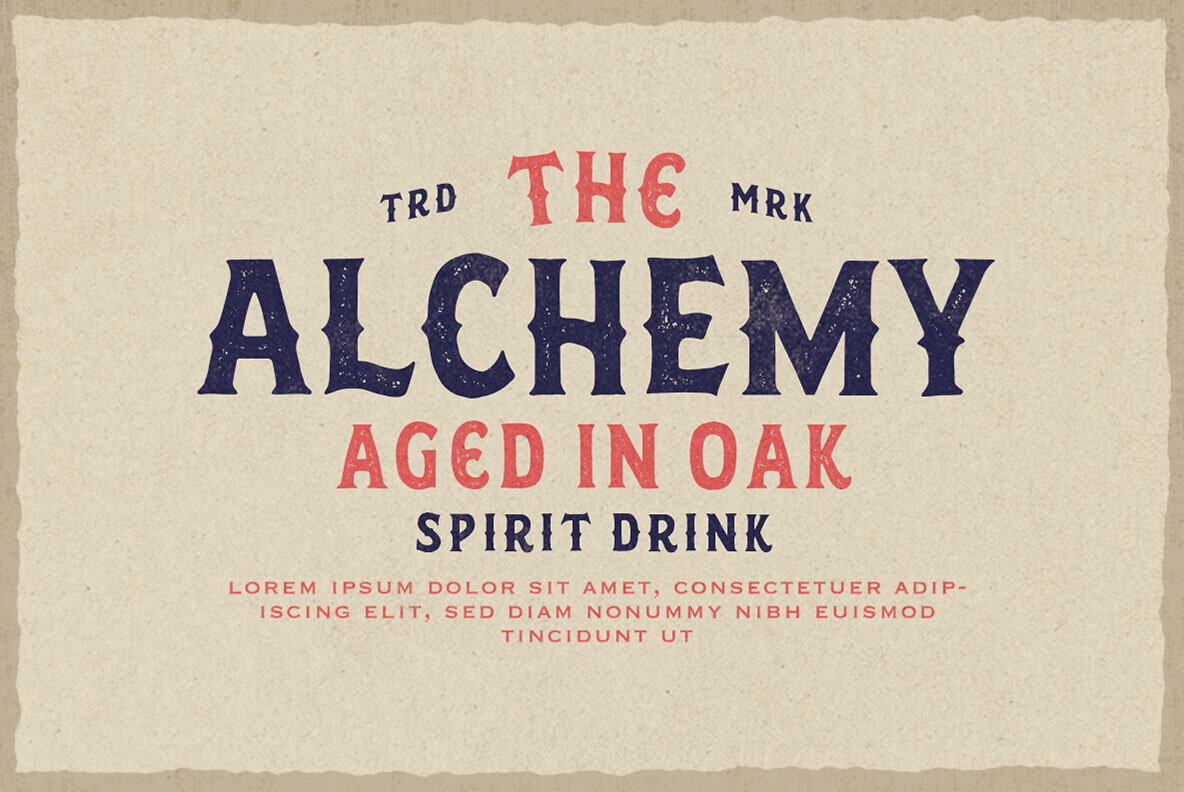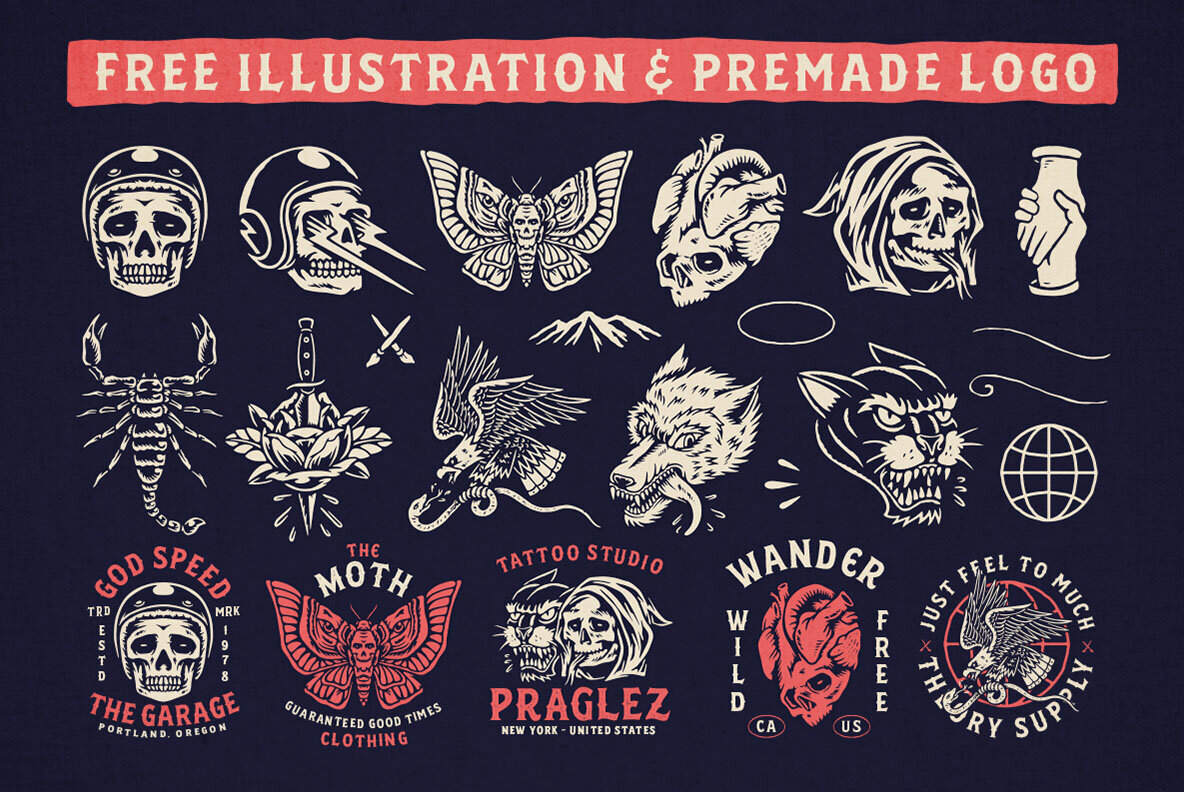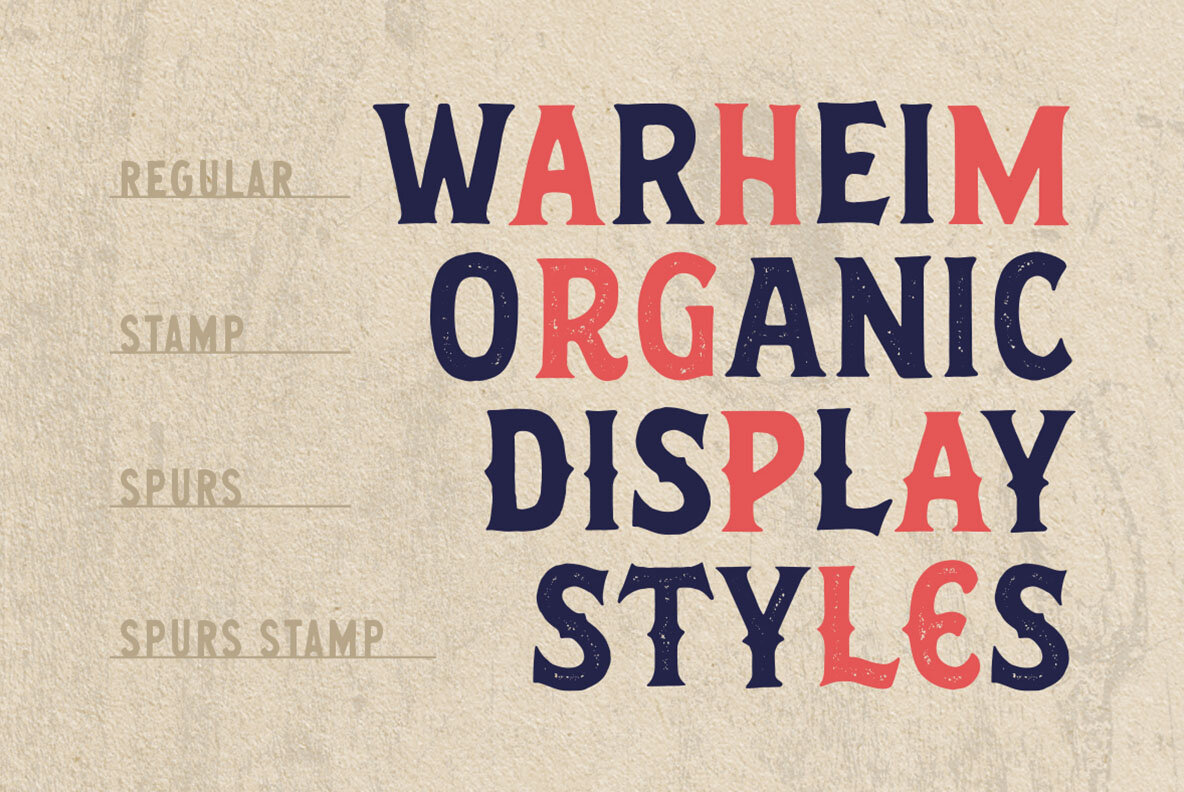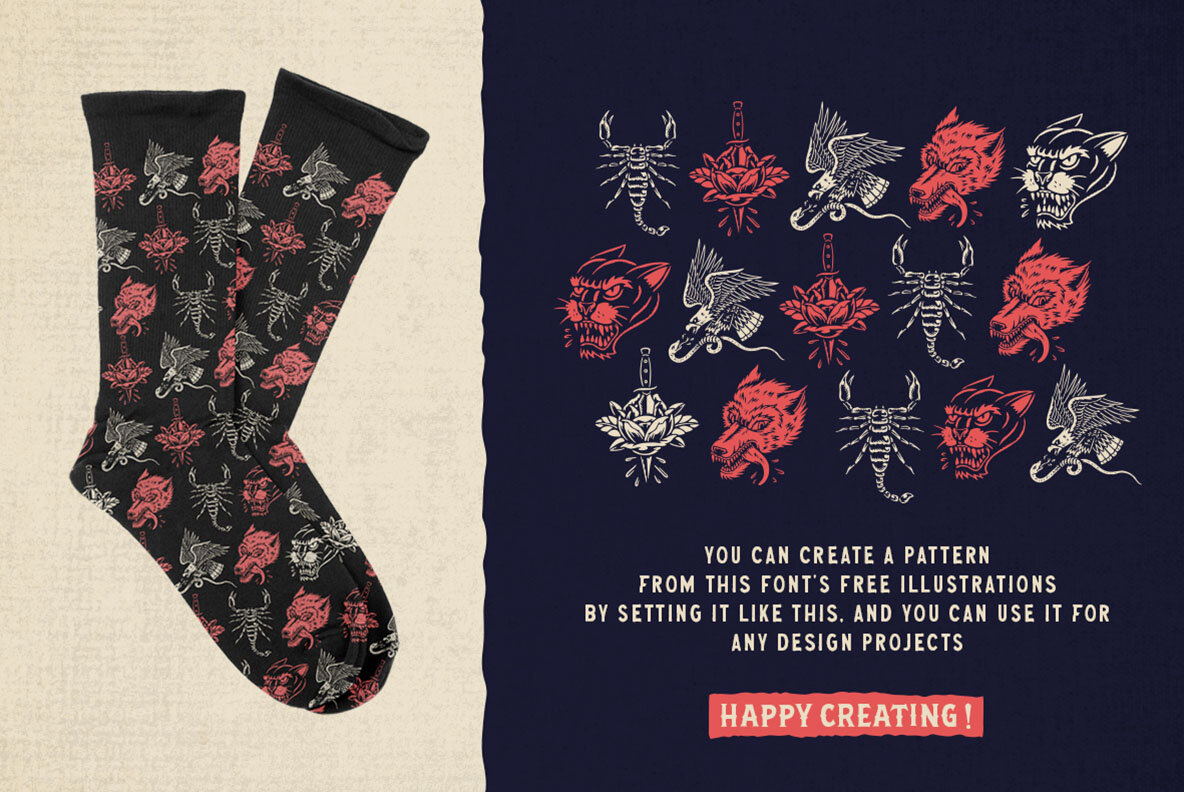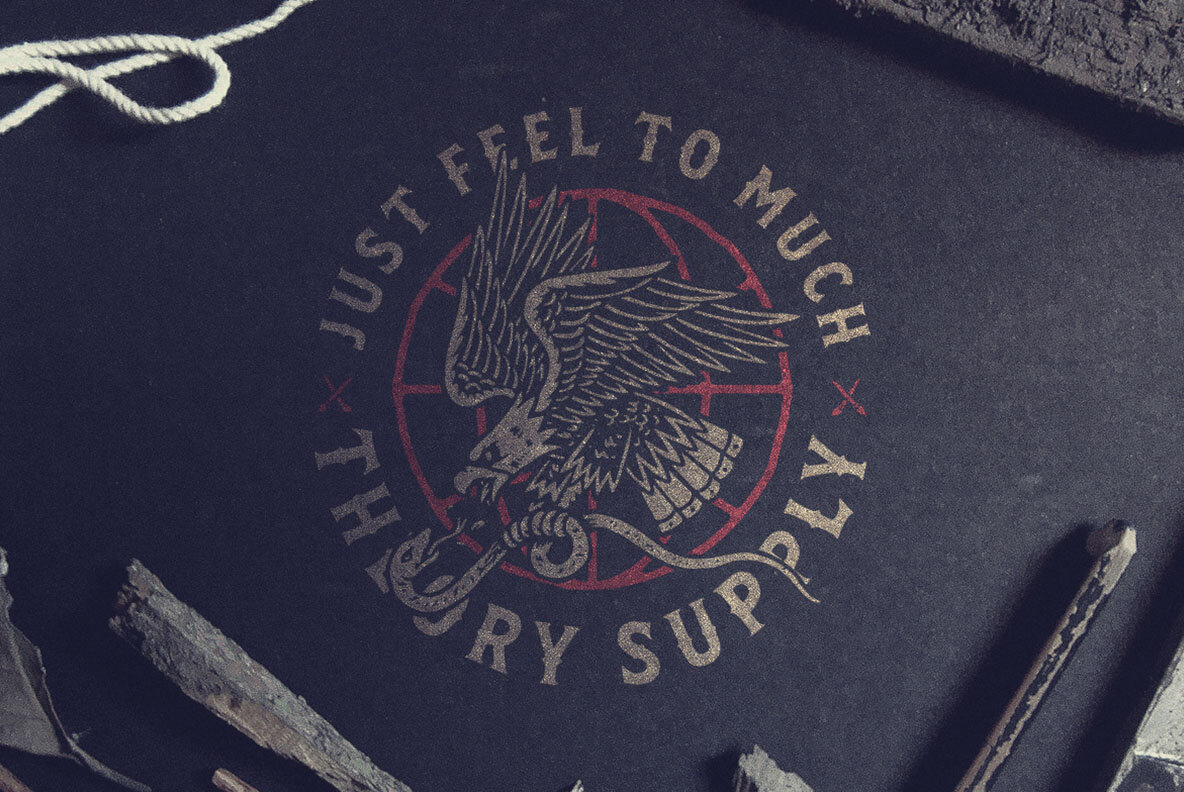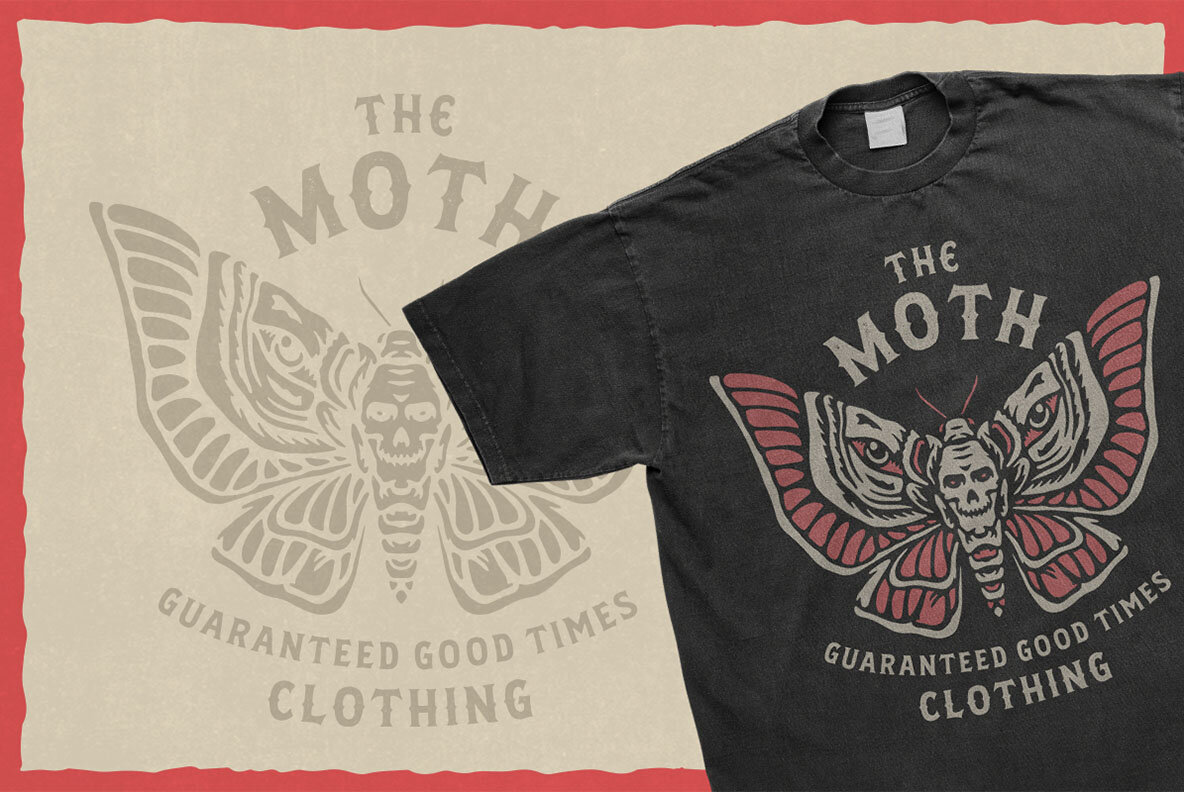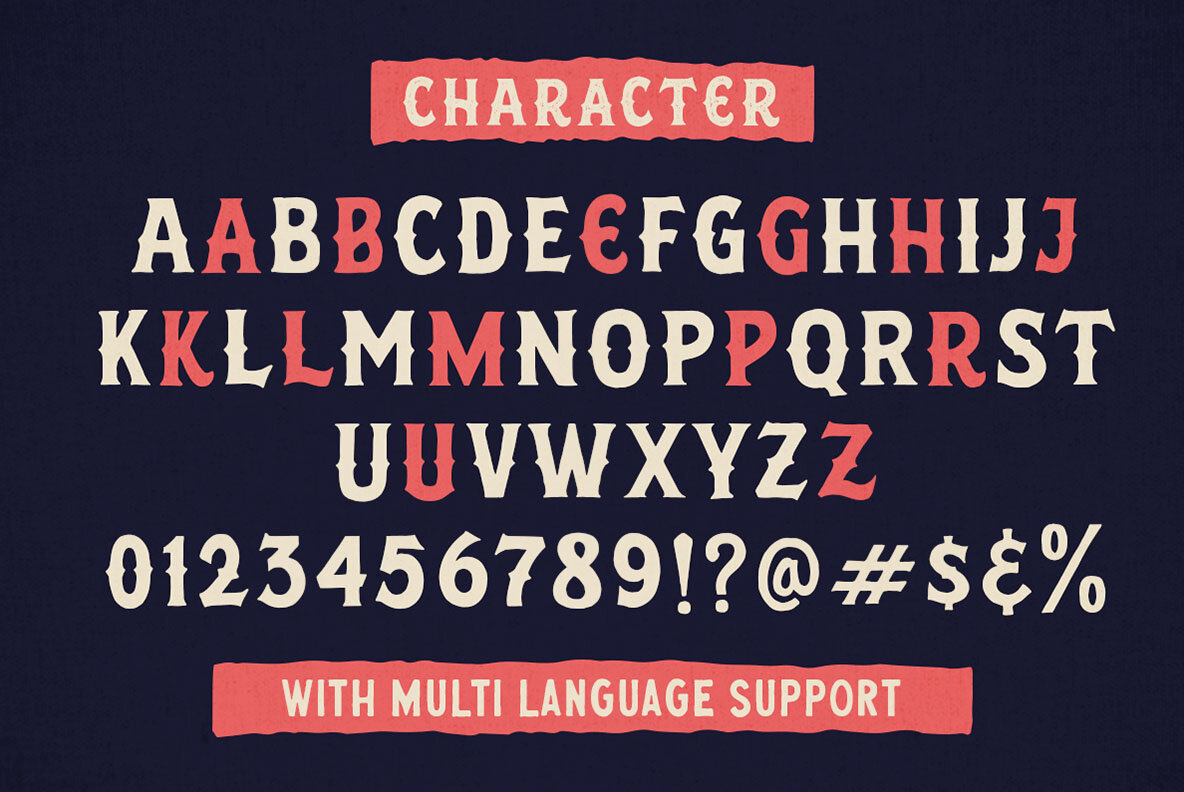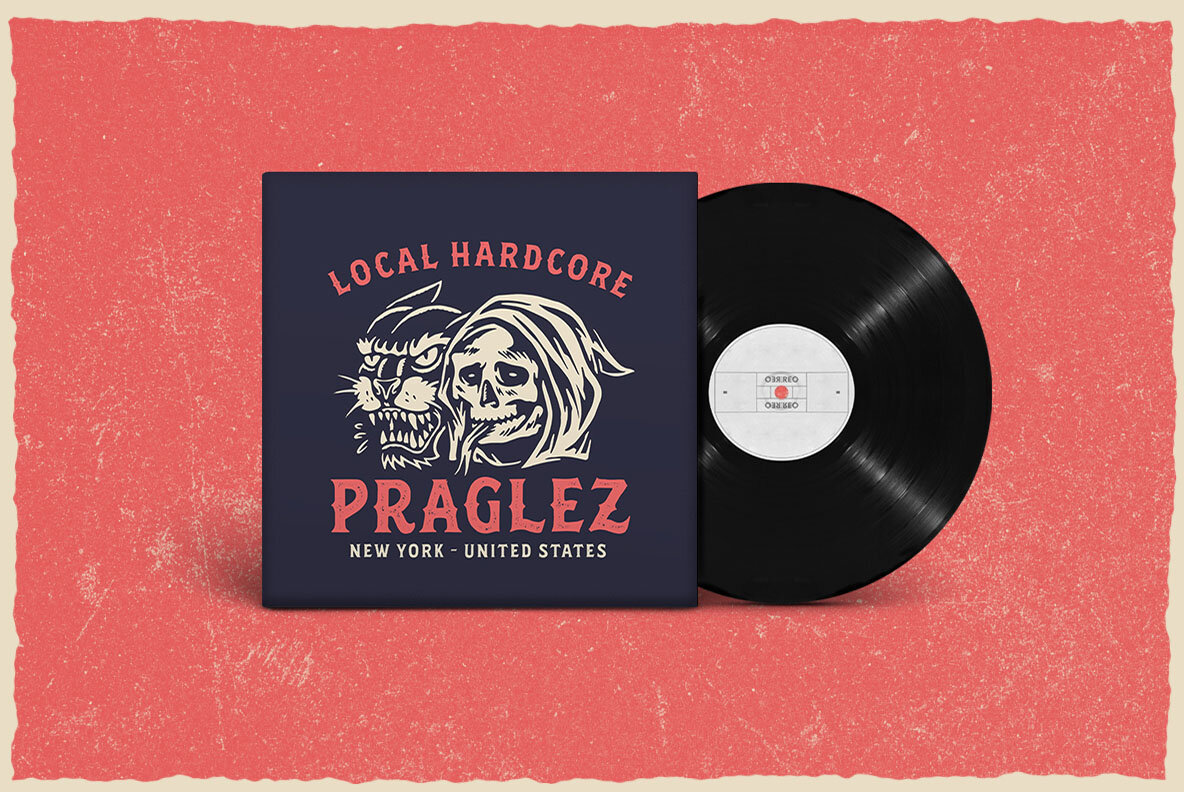
Warheim Font
Warheim Regular
Warheim Spurs
Warheim Stamp
Warheim Stamp Spurs
Warheim from Ironbird Creative brings an organic, hand-drawn touch to your design projects, offering a unique blend of vintage aesthetics and modern versatility. Available in regular, stamp, spurs, and spurs stamp styles, it caters to diverse creative needs. This typeface is ideal for designers seeking an organic feel in branding materials, apparel designs, logos, posters, and more.Warheim: A Handcrafted Display Typeface